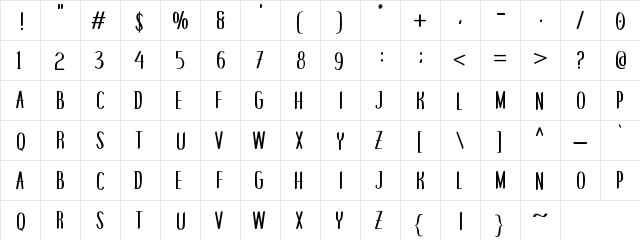
Pinasthika Medium
Design Context for Pinasthika Typeface
Pinasthika is a composed and adaptable typeface that performs quietly and consistently across a wide range of design contexts.